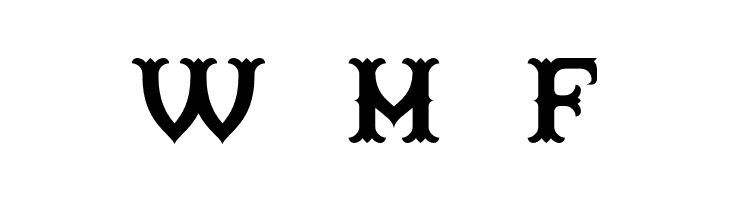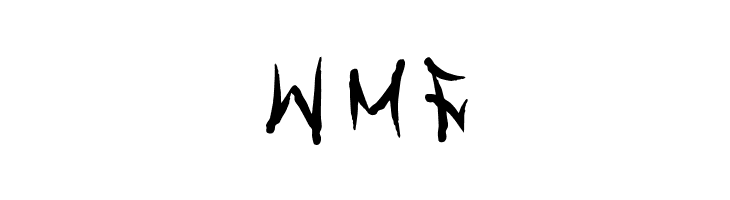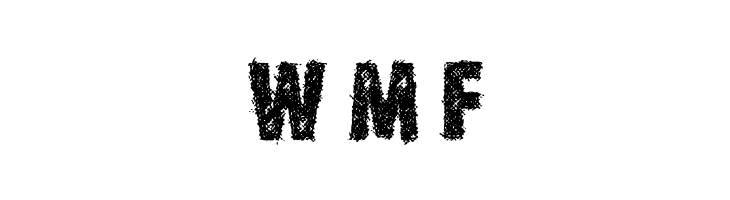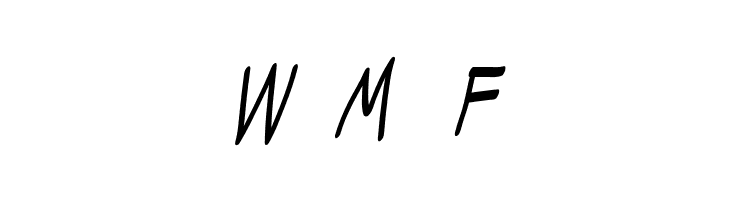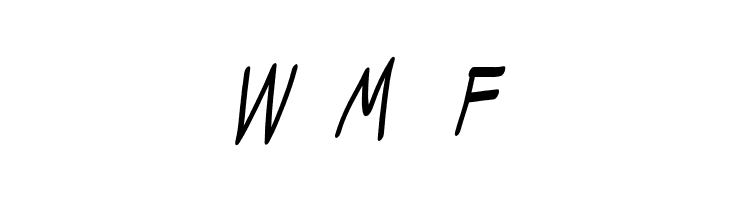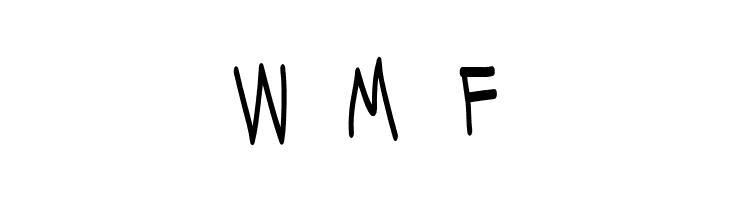
An ornate, festive font with decorative flourishes and holiday-themed embellishments.
An ornate and decorative Blackletter-style font with intricate details.
A festive, sparkling script font ideal for holiday designs.
A tall, slender, and modern font with clean lines and minimal curves.
A playful, handwritten font with a bold, whimsical style.
A playful, hand-drawn font with tall, narrow letters and a whimsical style.
A playful, hand-drawn font with rounded, bold characters.
A playful, handwritten-style font with tall, narrow letters and rounded edges.